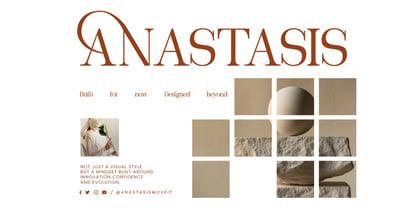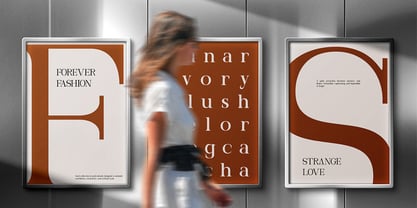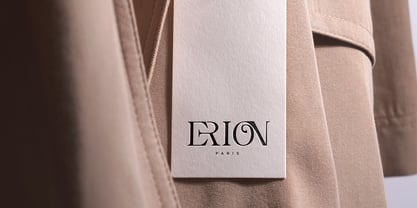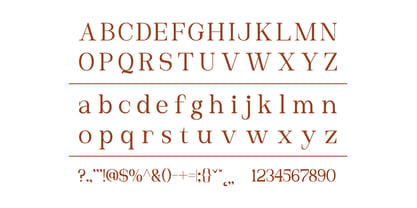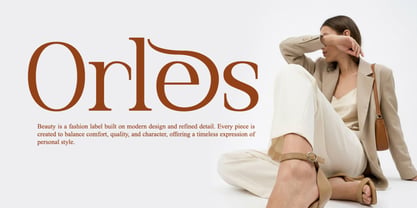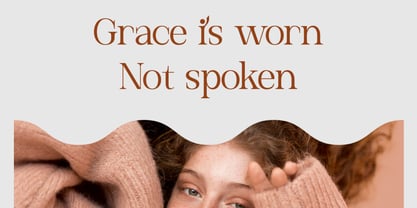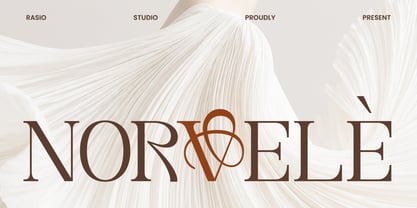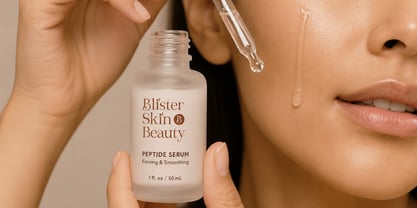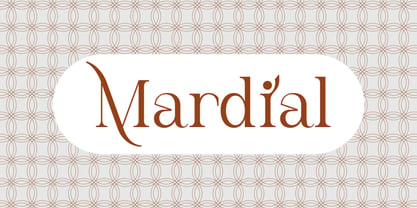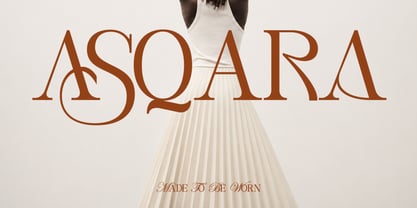
Norvele
Die Schriftfamilie Norvele wurde von Fajar Indra entworfen und von Rasio Studio veröffentlicht. Norvele enthält 1 Stile. Mehr über diese Familie
Norvele is a contemporary serif typeface distinguished by refined stroke contrast, elegant proportions, and meticulously sculpted letterforms. Designed with slender hairlines, crisp wedge serifs, and balanced vertical stress, the typeface creates a graceful visual rhythm while maintaining excellent clarity and consistency. It's generous counters, carefully controlled spacing, and subtle transitions between thick and thin strokes produce sophisticated typography.
Relevance and Use Case is perfect for projects that require refined editorial typography and premium visual presentation. Its balanced proportions and elegant contrast make it suitable for luxury brand identities, fashion publications, cosmetic and skincare packaging, jewelry collections, boutique branding, magazine covers, publishing layouts, wedding stationery, premium product labels, hospitality branding, architectural presentations